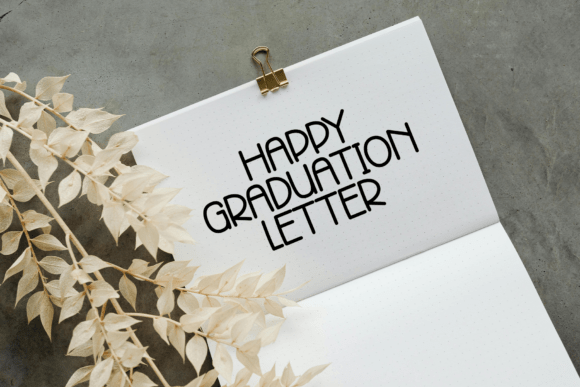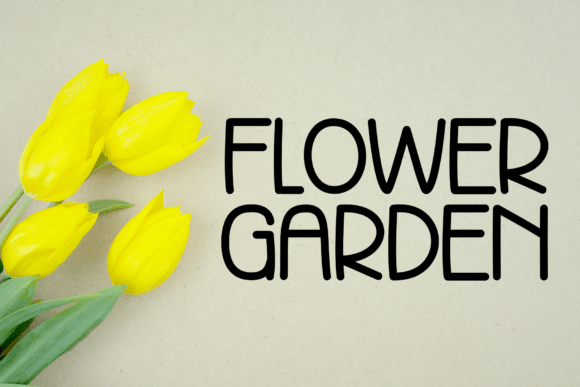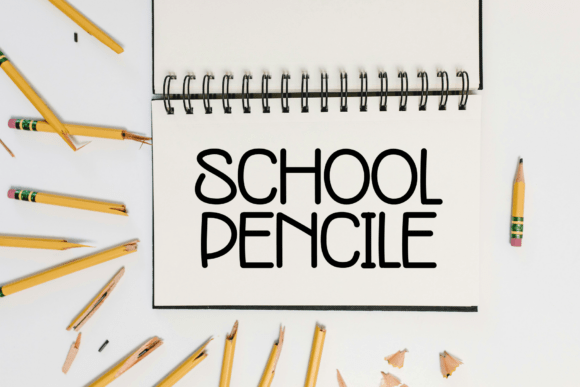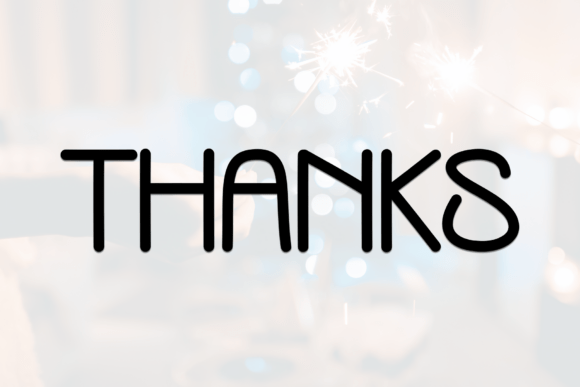
Welcome the New Year with Style: Discover the Charming Happy Newyear Font
As the clock strikes midnight on New Year’s Eve, the world welcomes a fresh start, filled with hope and promise. What better way to usher in the new year than with a font that embodies the spirit of joy, warmth, and celebration? Say hello to the Happy Newyear Font, a delightful handwritten typeface that is sure to add a touch of magic to your design projects.
The Perfect Blend of Heartfelt Perfection and Relaxed Charm
Happy Newyear is a charming handwritten font that exudes a sense of heartfelt perfection. Its smooth strokes and organic lines create a relaxed atmosphere, making it perfect for a wide range of design applications. Whether you’re a designer, crafty DIY enthusiast, or social media influencer, this font is sure to become your go-to choice for creating visually stunning projects.
Key Features of the Happy Newyear Font
- Smooth Strokes: The Happy Newyear Font boasts smooth, flowing strokes that give it a natural, effortless look.
- Organic Lines: The font’s organic lines add a touch of warmth and personality to your designs.
- Handwritten Charm: The font’s handwritten style gives it a unique, personal feel that’s perfect for creating invitations, social media graphics, and more.
- Versatile: The Happy Newyear Font is suitable for a wide range of design projects, from branding and advertising to crafting and DIY.
Design Project Ideas Featuring the Happy Newyear Font
The Happy Newyear Font is an incredibly versatile typeface that can be used in a variety of design projects. Here are a few ideas to get you started:
- Branding: Use the Happy Newyear Font to create a unique and memorable brand identity for your business or personal project.
- Invitations: Add a touch of warmth and personality to your invitations, whether it’s for a New Year’s Eve party, wedding, or baby shower.
- Social Media Graphics: Create eye-catching social media graphics, such as Facebook posts, Instagram stories, and Twitter headers, using the Happy Newyear Font.
- Crafting and DIY: Use the font to create custom signs, banners, and other decorative items for your crafting and DIY projects.
Tips for Using the Happy Newyear Font
To get the most out of the Happy Newyear Font, here are a few tips to keep in mind:
- Pair with Bold Fonts: Pair the Happy Newyear Font with bold, contrasting fonts to create visual interest and hierarchy.
- Experiment with Colors: Try out different color schemes to find the perfect combination that complements your design.
- Keep it Simple: Don’t be afraid to keep your design simple and clean, allowing the Happy Newyear Font to take center stage.
The Happy Newyear Font is a charming and versatile typeface that’s perfect for designers, crafty DIY enthusiasts, and social media influencers. Its smooth strokes, organic lines, and handwritten charm make it an excellent choice for a wide range of design projects. Whether you’re looking to create a unique brand identity, eye-catching social media graphics, or custom crafting and DIY projects, the Happy Newyear Font is sure to bring a touch of joy and celebration to your designs.